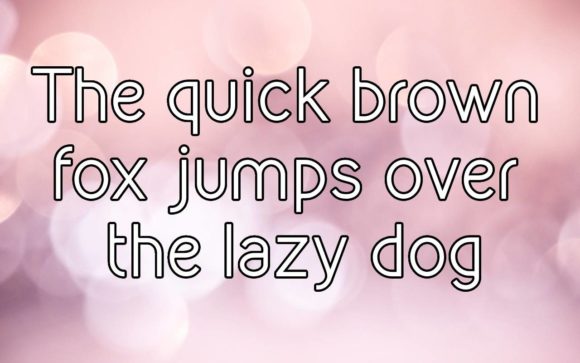
Introduction to Kirvy Font
Kirvy is a stunning, beautiful and flowing font.
It has beautiful and well balanced characters and as a result, it matches a wide pool of designs Add it to your most creative ideas and notice how it makes them come alive.